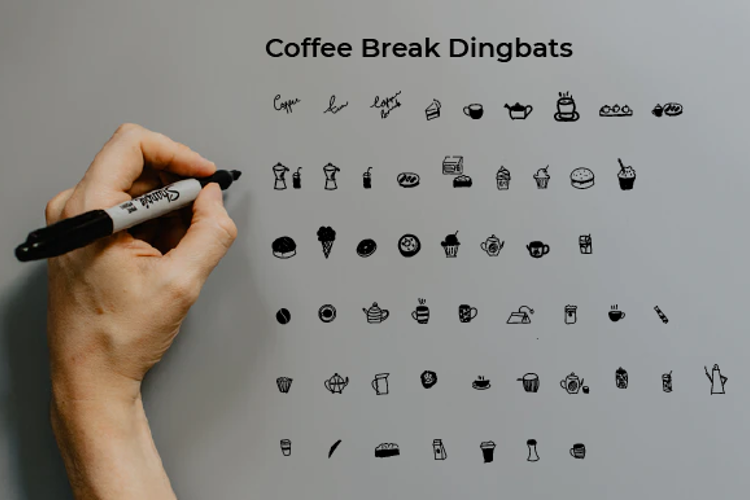
Coffee Break Font
Coffee Break is a fun and incredibly useful dingbats font. Employ it confidently to each of your creative ideas and notice how they stand out!